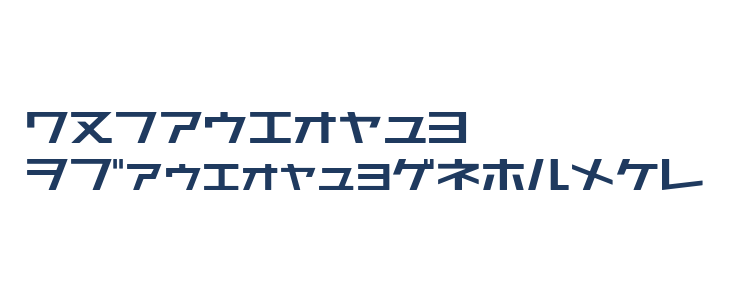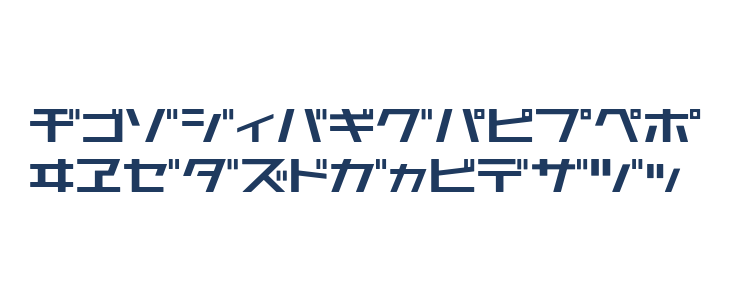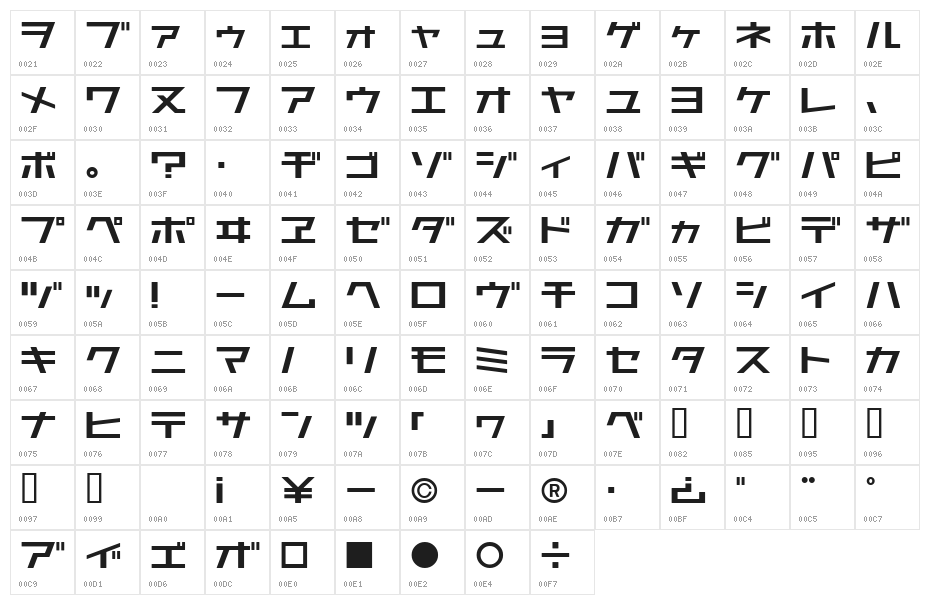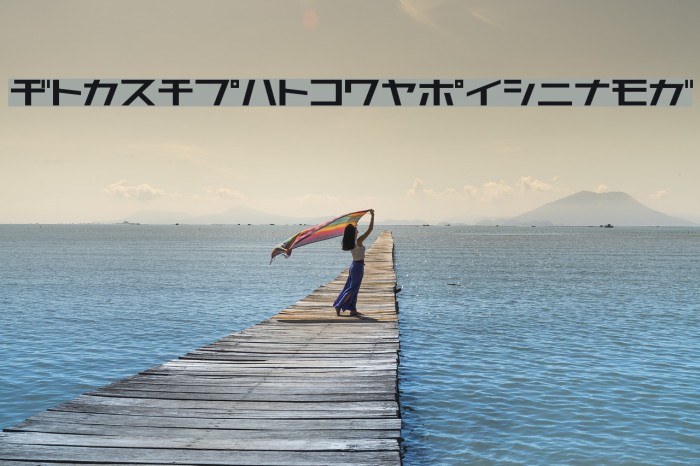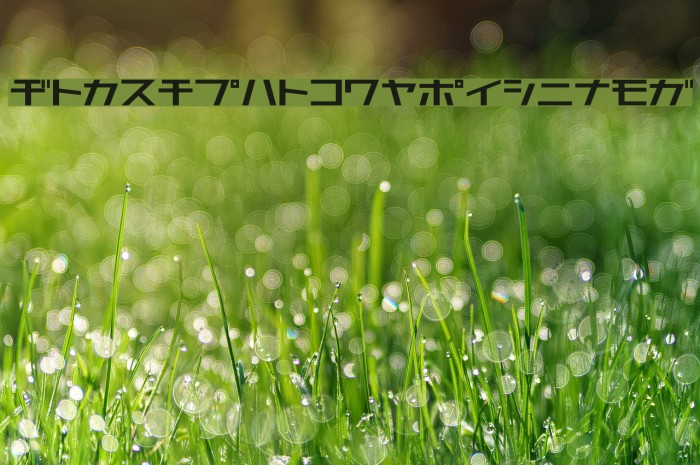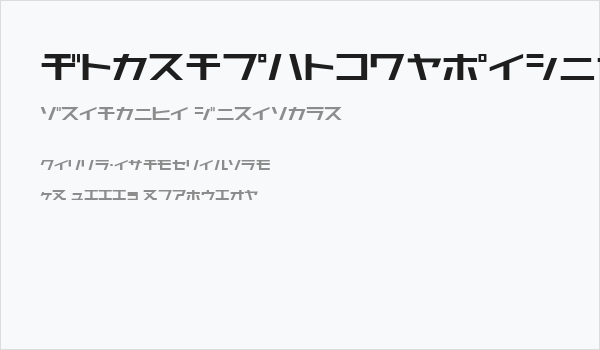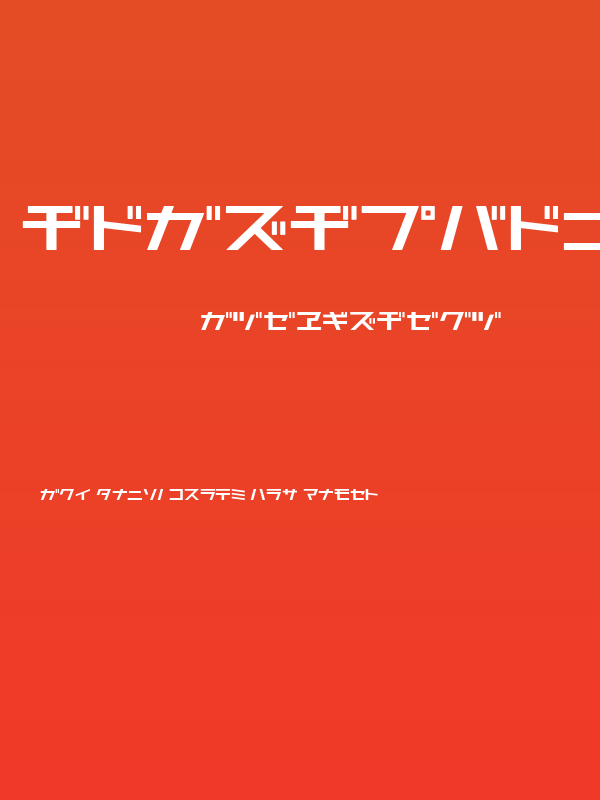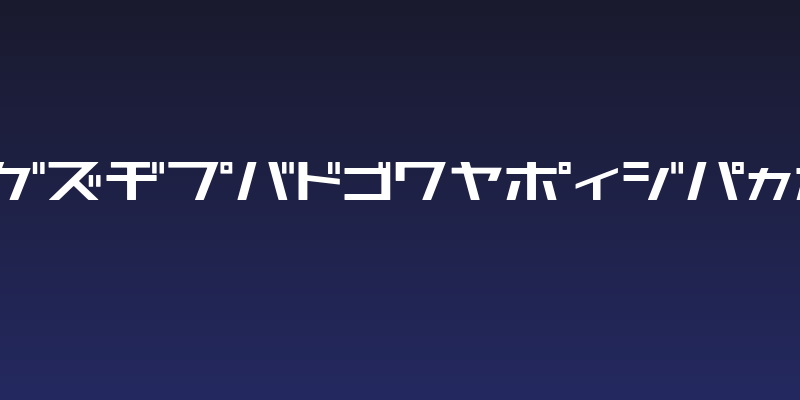
AstraKfsb07MediumT Font
AstraKfsb07MediumT Description
This font features a bold and geometric style with clean, sharp lines and a modern aesthetic. The characters are evenly spaced, providing a balanced and structured appearance. The uniformity in stroke width gives it a cohesive look, making it suitable for various design applications. Its distinct and clear form ensures readability while maintaining a contemporary feel. The font's design is versatile, allowing it to be used in both digital and print media effectively.
Proposed ProjectsIdeal for branding, headlines, posters, and digital media where a modern and bold statement is needed.